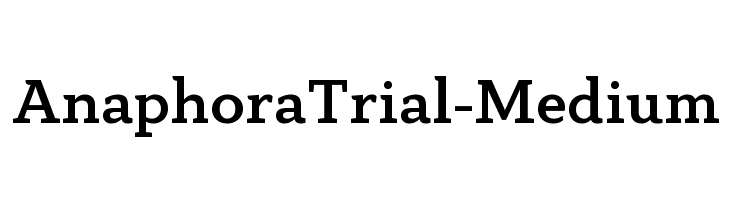
( London's Letters - www.londonsletters.com/ )
A playful, beach-themed decorative font with intricate interior designs.
( London's Letters - www.londonsletters.com/ )
A whimsical, castle-themed decorative font with bold, enchanting characters.
( London's Letters - www.londonsletters.com/ )
A whimsical font with characters integrated with bat illustrations, perfect for themed designs.
( London's Letters - www.londonsletters.com/ )
A decorative font with winged embellishments, ideal for fantasy-themed projects.
( London's Letters - www.londonsletters.com/ )
A decorative font with ballet-themed embellishments and elegant flourishes.
( London's Letters - www.londonsletters.com/ )
A bold, basketball-themed decorative font with dynamic swoosh elements.
( London's Letters - www.londonsletters.com/ )
A playful serif font with alien-themed decorative elements.
( London's Letters - www.londonsletters.com/ )
A decorative font with warrior-themed illustrations integrated into each character.
( Mattyhex - www.mattyhex.net/cmr/ )
A whimsical, hand-drawn font with playful curves and sharp edges.
( MaxMido - www.behance.net/maxmido )
A modern, minimalist font with clean lines and geometric shapes.
( Nght's Place - www.crosswinds.net/~nghtmvs/font/fonts1.html )
A bold, cheetah print-inspired decorative font with medium contrast.
( Nght's Place - www.crosswinds.net/~nghtmvs/font/fonts1.html )
A circuit-inspired font with intricate, tech-themed detailing.
( Nght's Place - www.crosswinds.net/~nghtmvs/font/fonts1.html )
A decorative, dagger-inspired font with a gothic and medieval aesthetic.
( Random - ampheria.thecomicseries.com )
A bold, rounded font with a playful and modern style.
( Fonts by Hendrick Rolandez - www.moinzek.com - Personal-use only. For commercial use please contact owner. )
An elegant, high-contrast serif font with a medium weight and extended italic style.
( Fonts by Lit Design Studio - Personal-use only. For commercial use please contact owner. )
A modern, medium-weight sans-serif font with clean lines and balanced proportions.
( Fonts by Donald E. Knuth - Personal-use only. For commercial use please contact owner. )
A clean, modern sans-serif font with medium weight and balanced proportions.
( Fonts by Mozilla Foundation - Personal-use only. For commercial use please contact owner. )
A modern slab serif font with strong serifs and clean lines.
( Fonts by Mozilla Foundation - Personal-use only. For commercial use please contact owner. )
A medium-weight, italic slab serif font with a modern and versatile style.